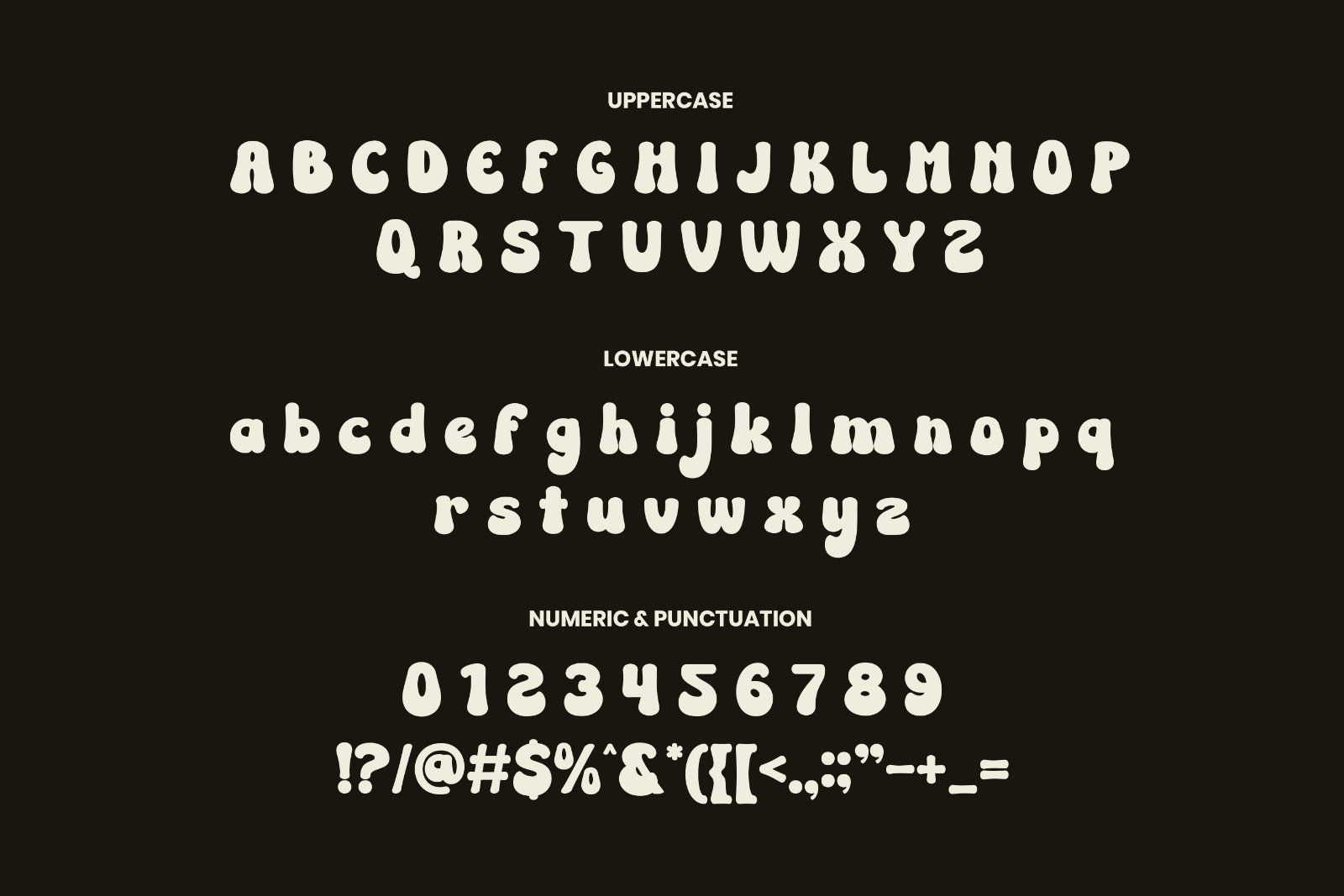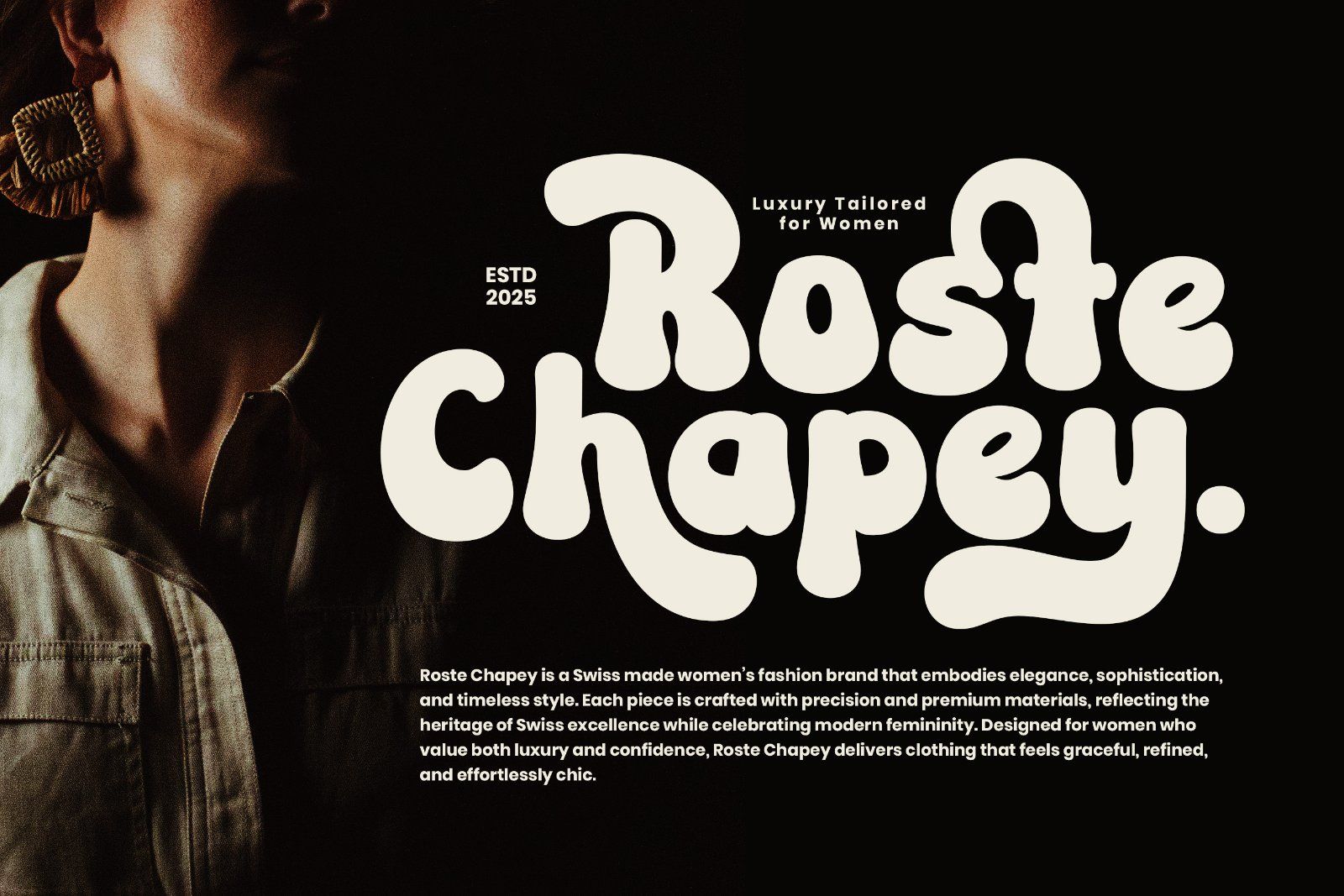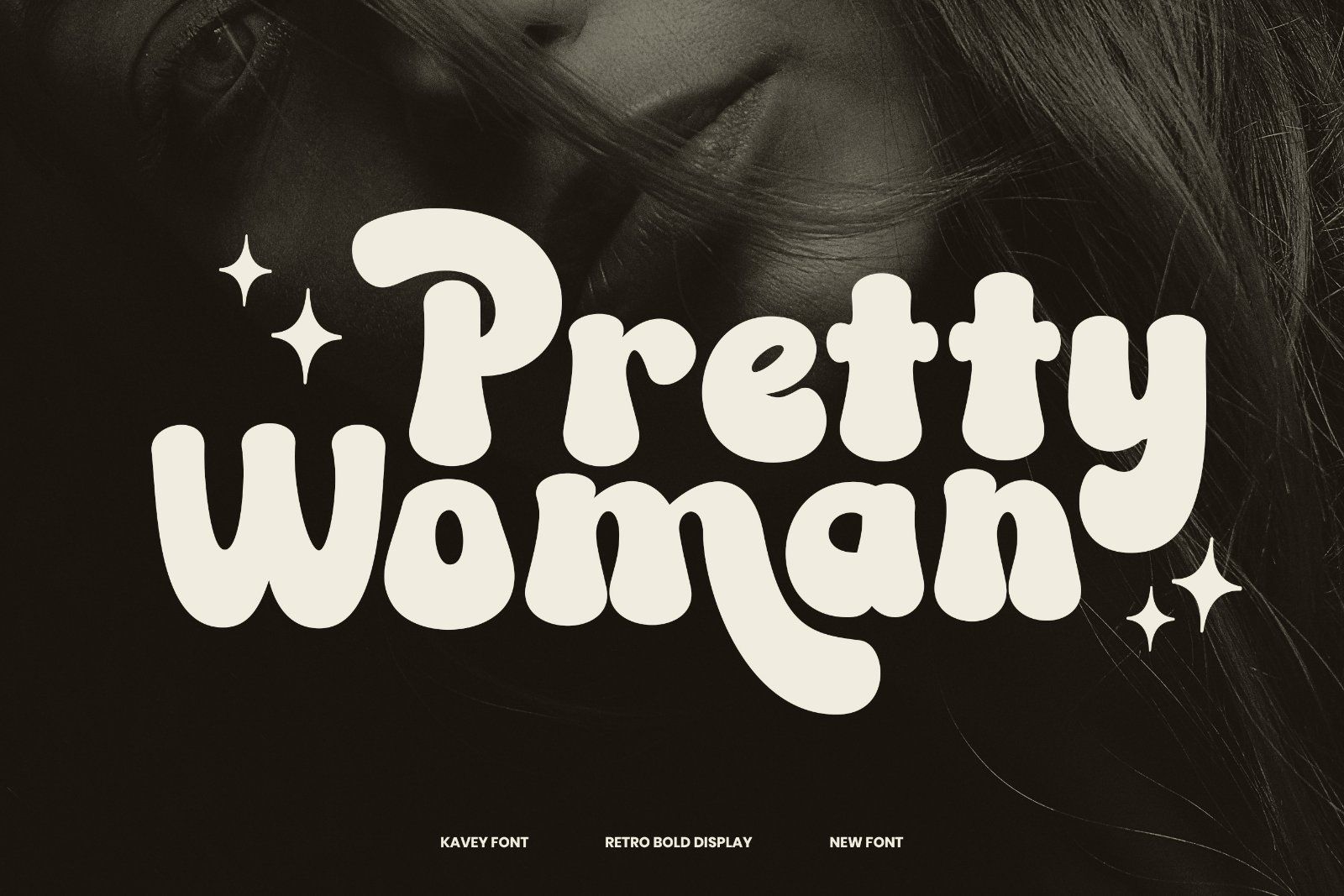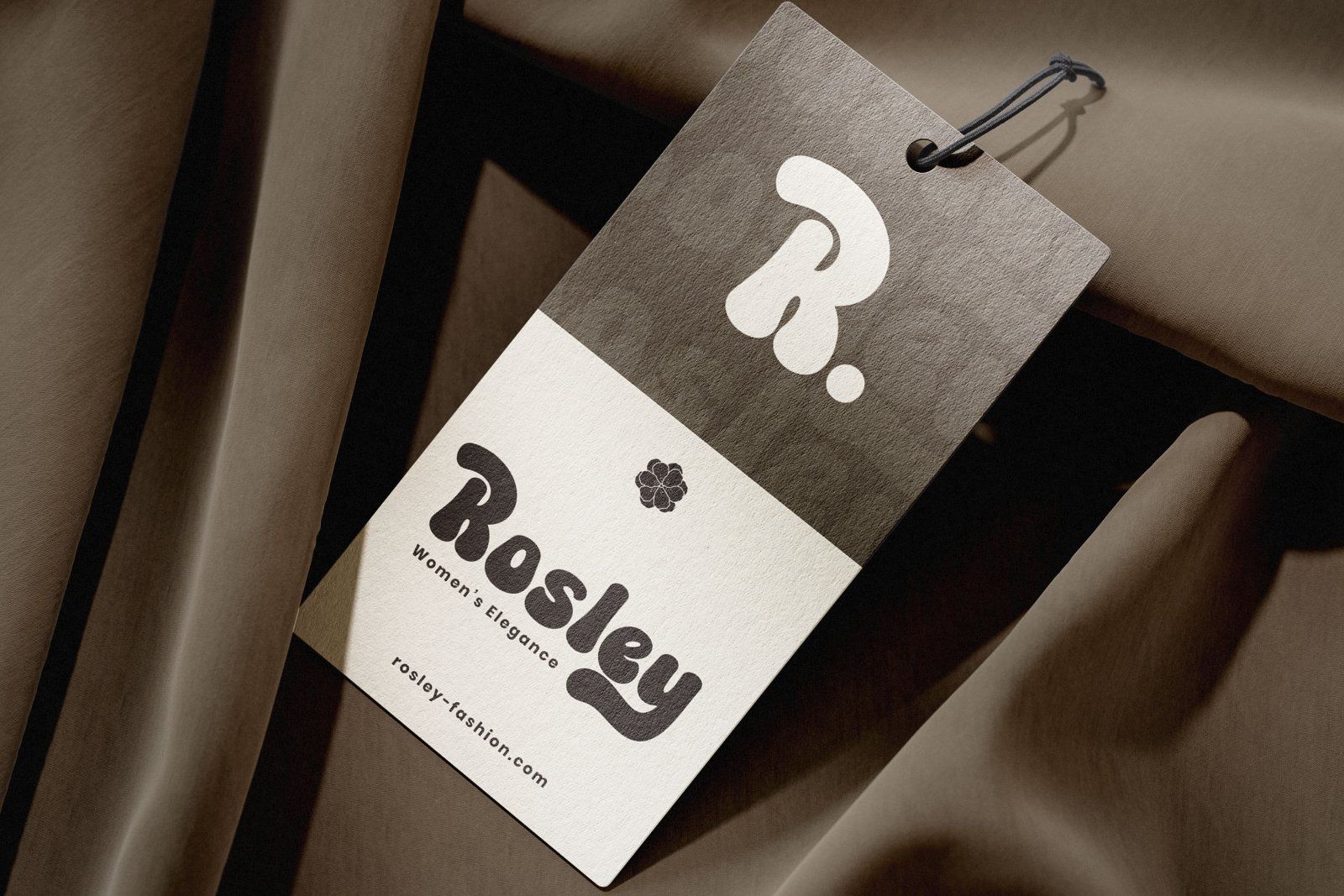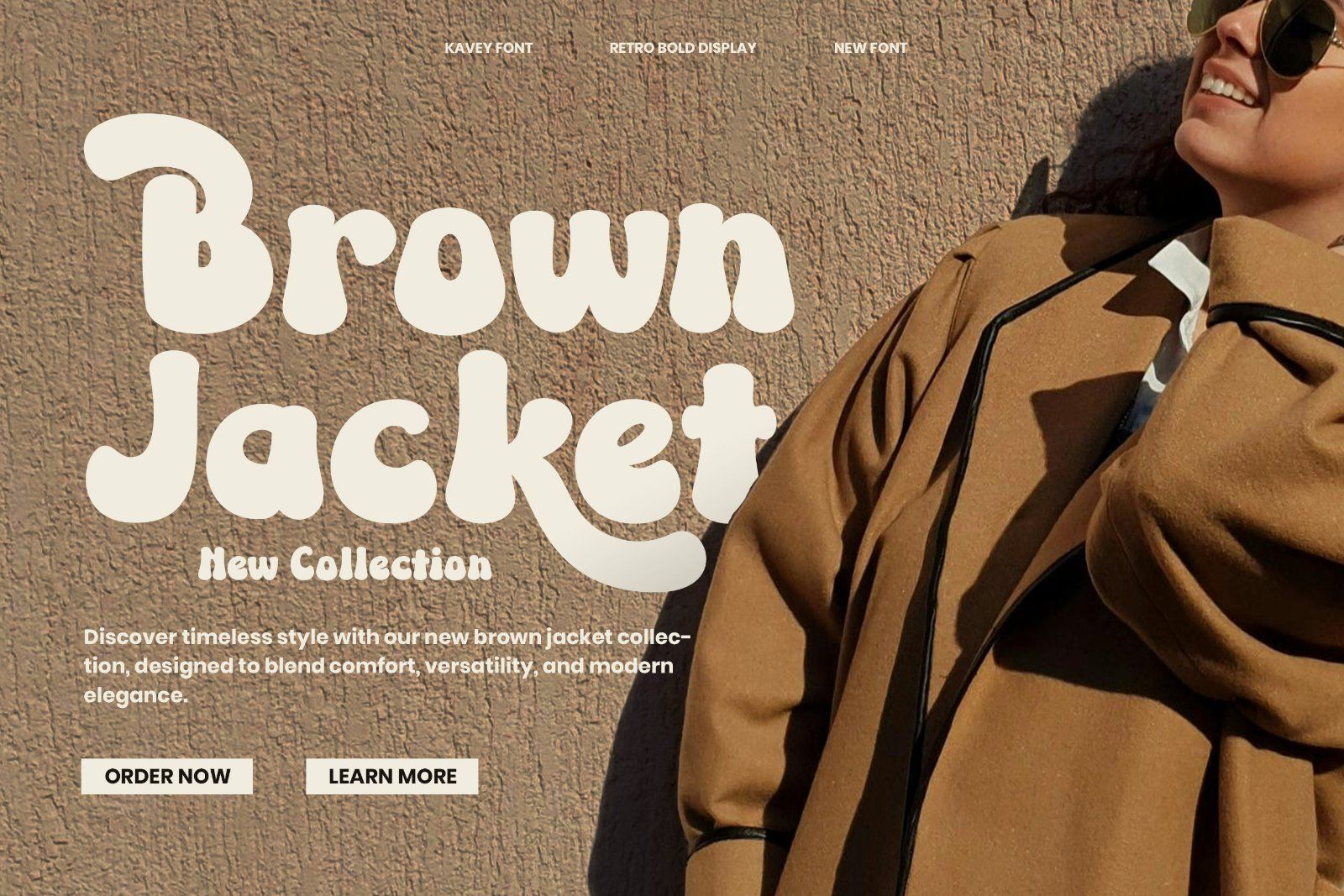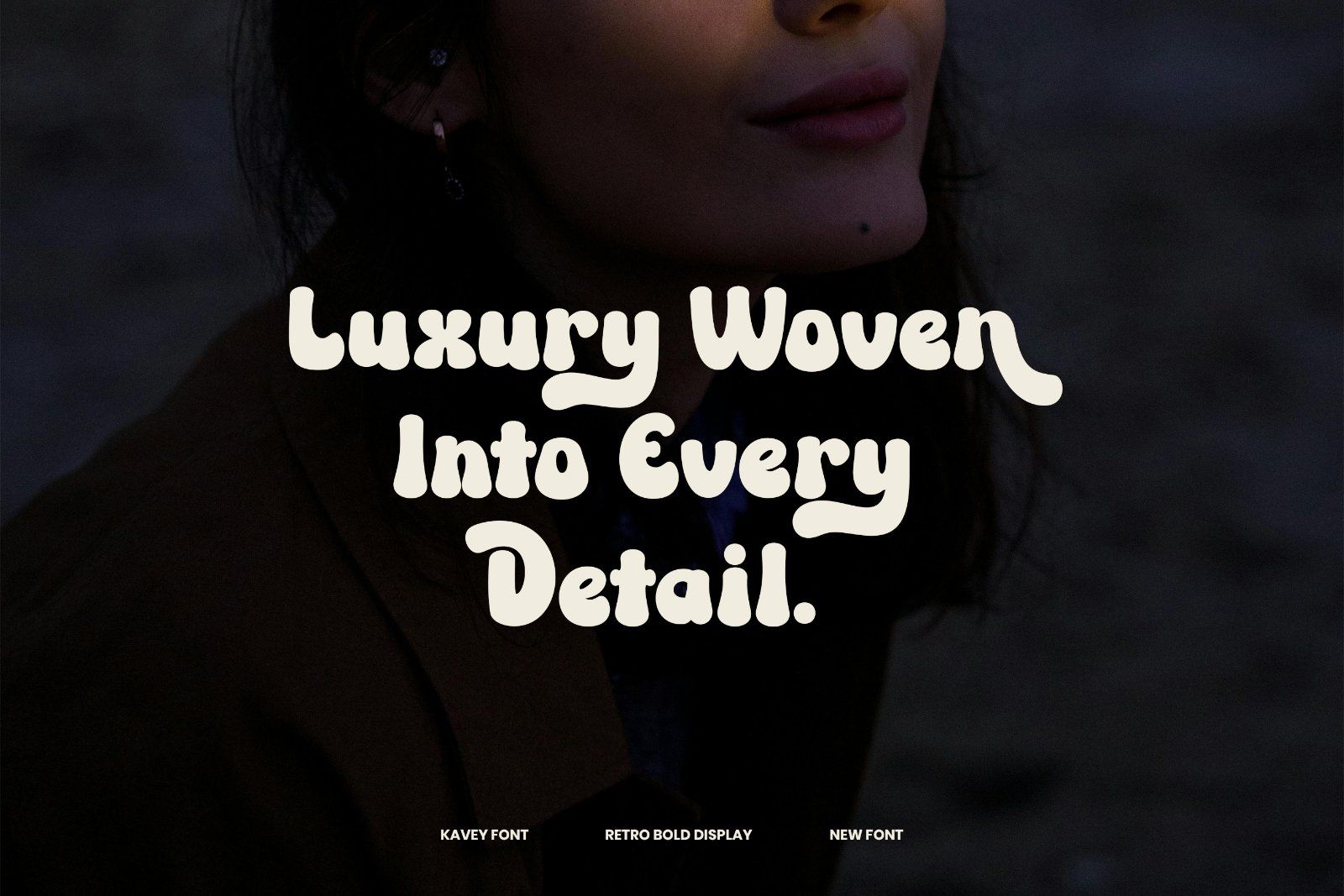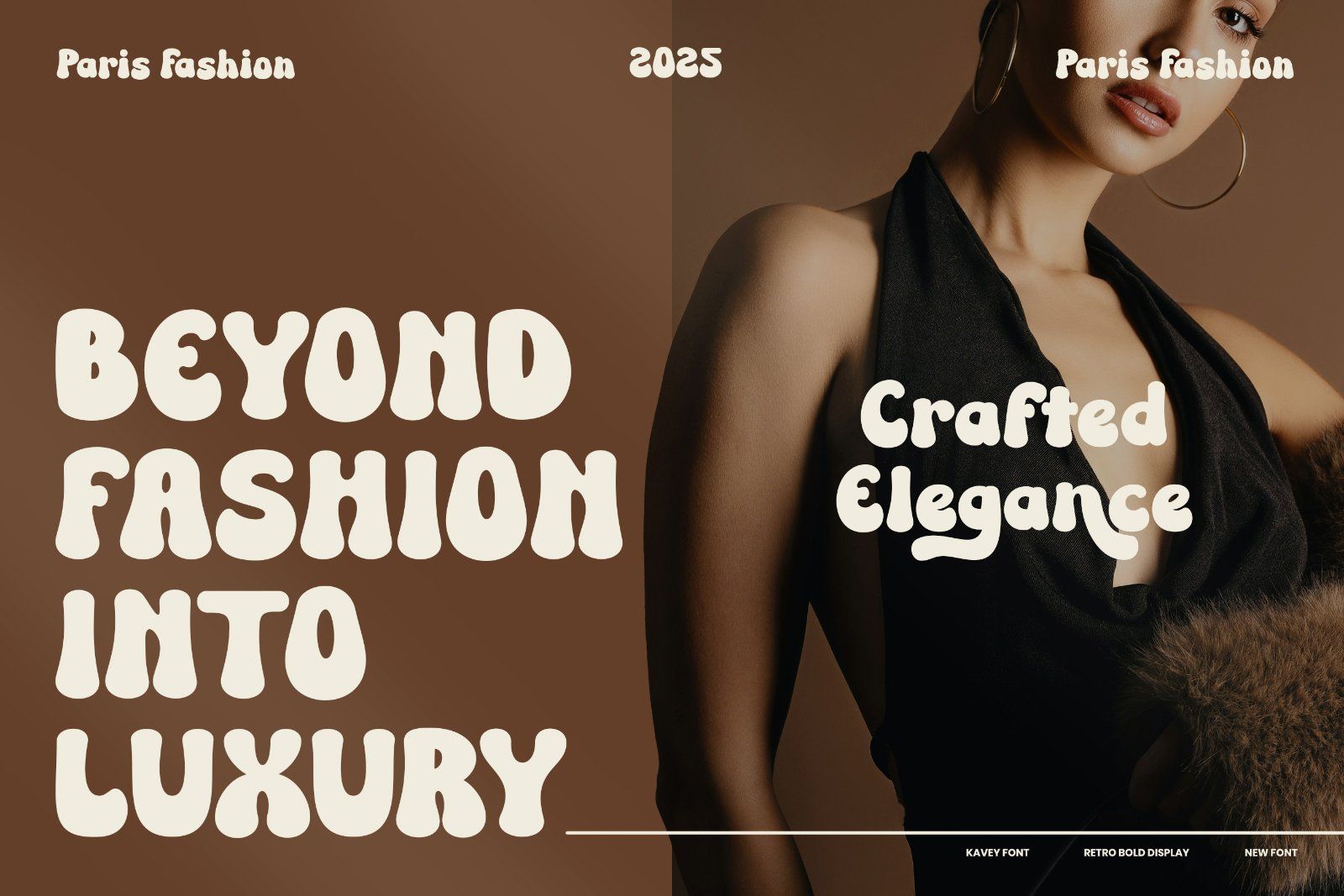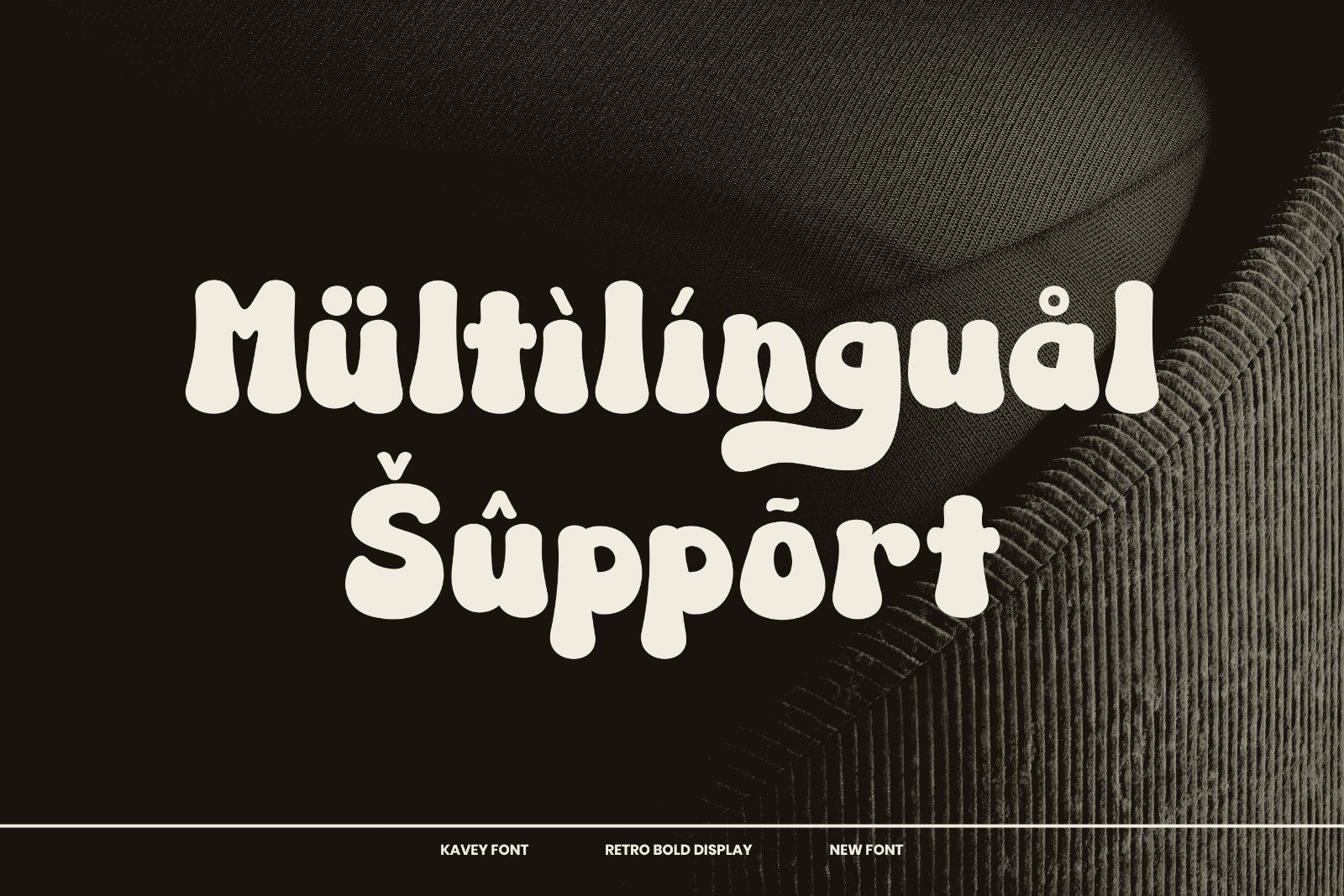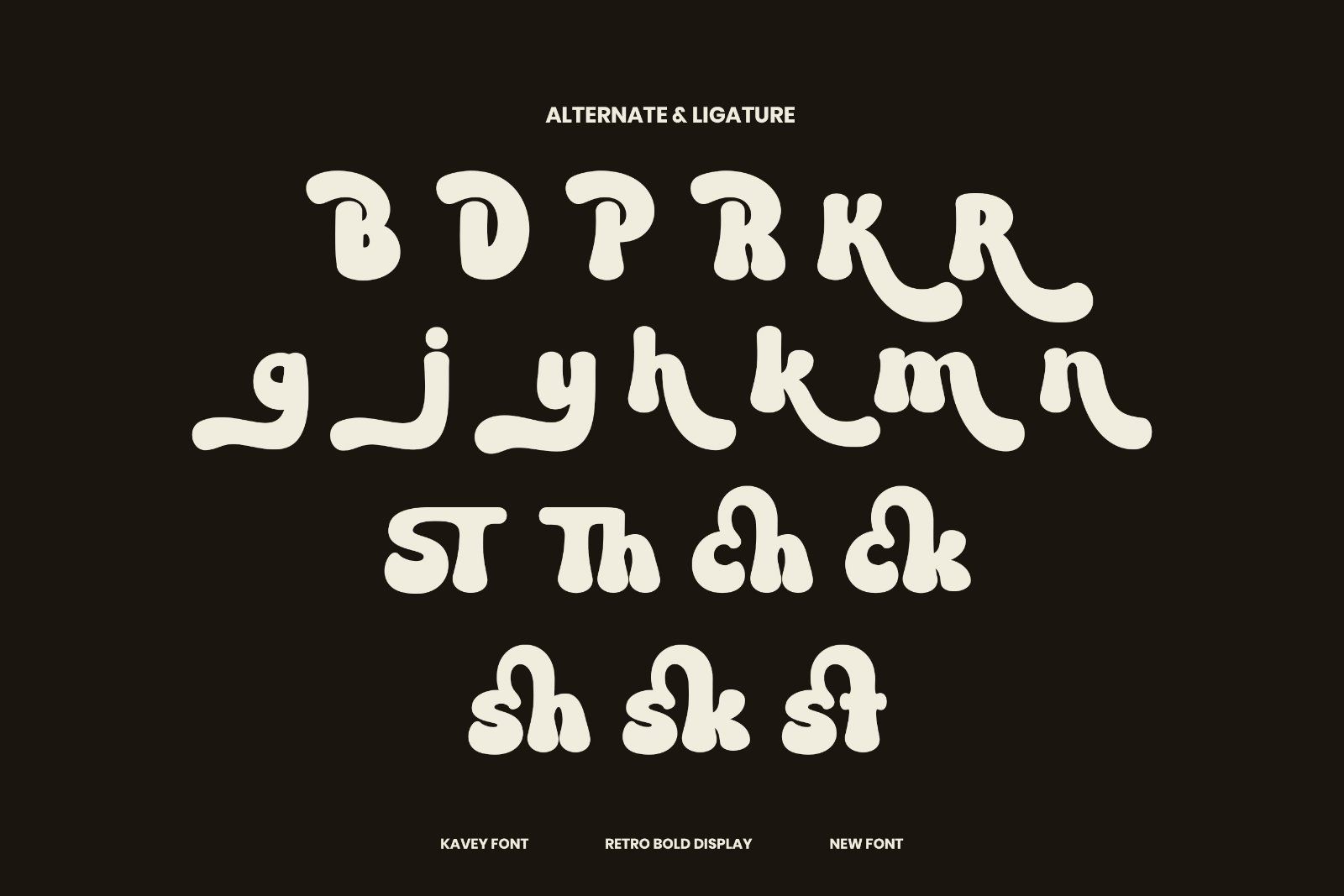
Kavey is a bold and playful retro display font that brings a groovy and nostalgic vibe to your design projects. With its chunky letterforms and smooth curves, Kavey captures the essence of vintage aesthetics while remaining fresh and modern for contemporary use. Perfect for logos, packaging, posters, and branding that craves a bold statement, Kavey adds a sense of fun and personality wherever it’s applied.
• Uppercase alphabet A-Z
• Lowercase alphabet a-z
• Numbers 0-9
• Some punctuation
• Some Alternates and Ligatures